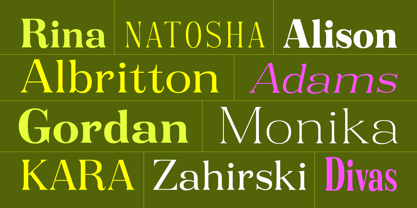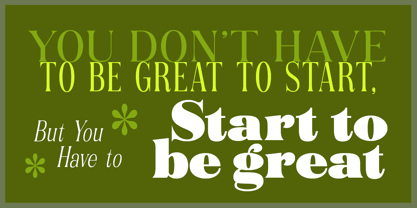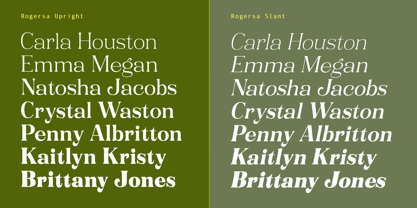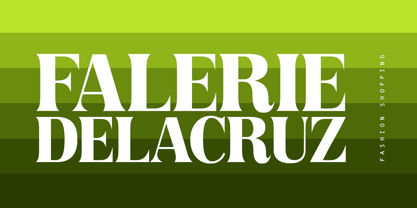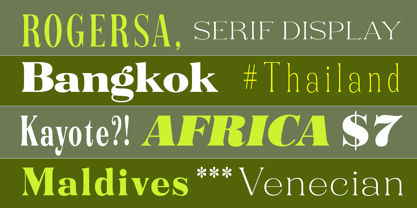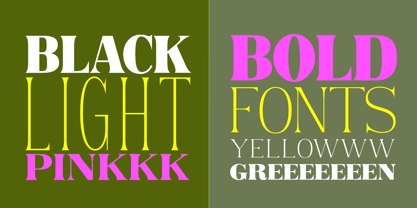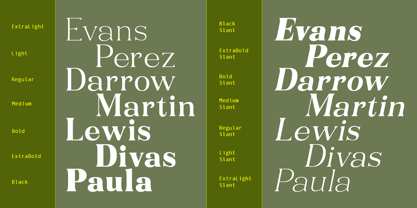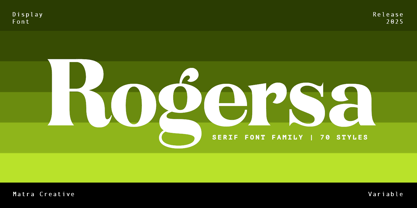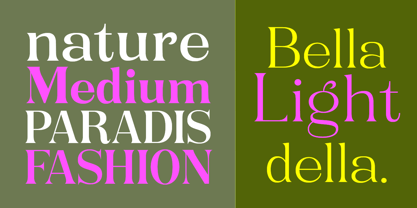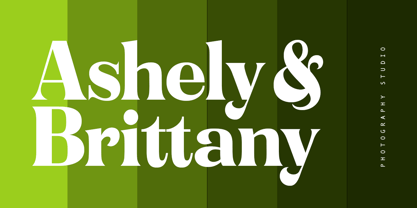
Rogersa
von Matra Creative
Die Schriftfamilie Rogersa wurde von May Adifarzan muis entworfen und von Matra Creative veröffentlicht. Rogersa enthält 71 Stile und Familienpaketoptionen. Mehr über diese Familie
Rogersa Display is a sharp and elegant serif typeface family that seamlessly blends the grace of classical forms with modern expressive flair. Featuring high-contrast strokes, razor-sharp serifs, and commanding proportions, it brings sophistication and drama to any design.
With 70 static styles—covering 7 weights, 5 widths, and both upright and slanted cuts—plus a powerful variable font, Rogersa Display offers the flexibility to suit both precision-driven and expressive typographic needs.
Perfect for magazine headlines, titles, luxury branding, fashion logos, posters, book covers, packaging, and identity design, Rogersa Display makes a bold and refined statement across both print and digital media.
Designer: May Adifarzan muis
Foundry: Matra Creative